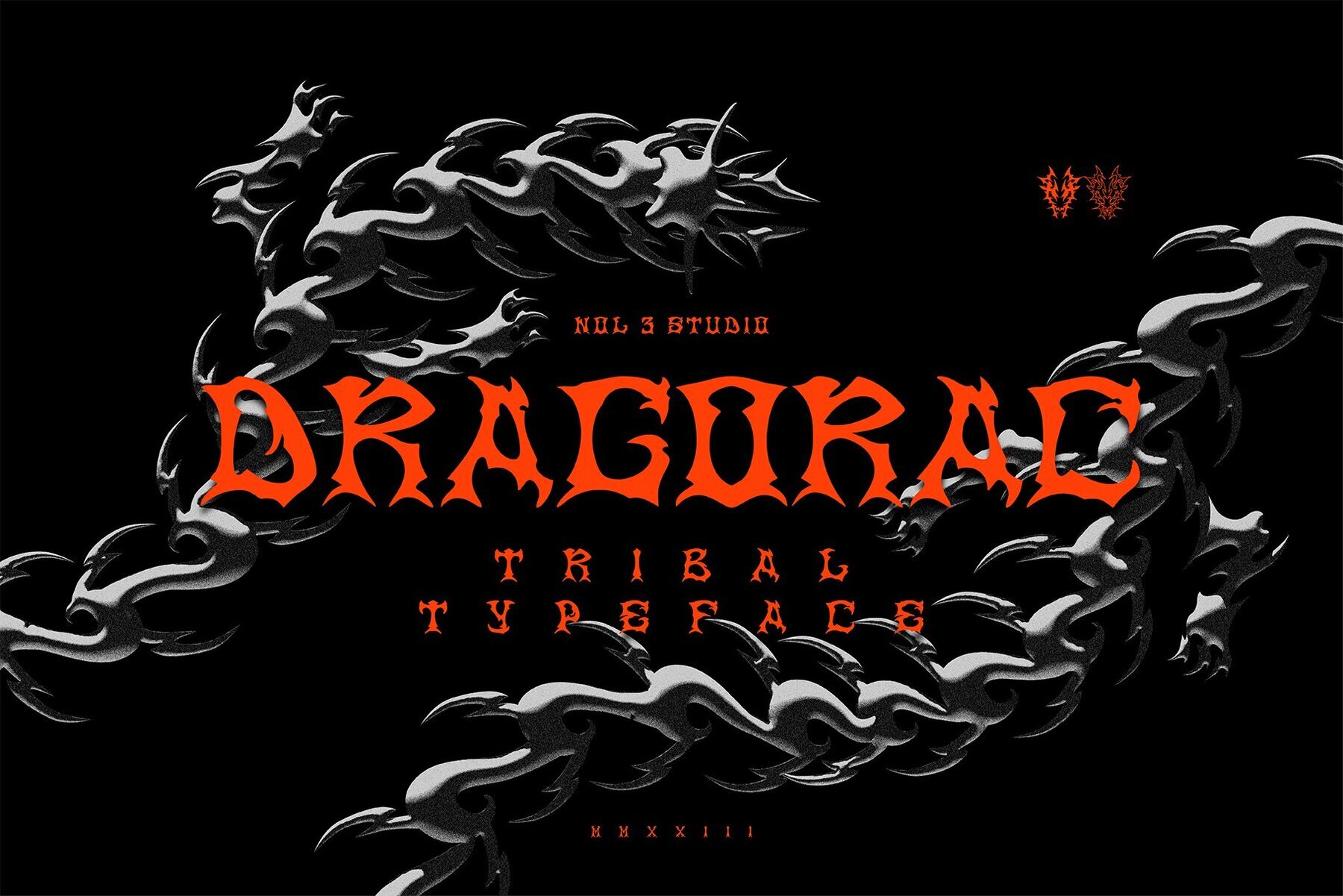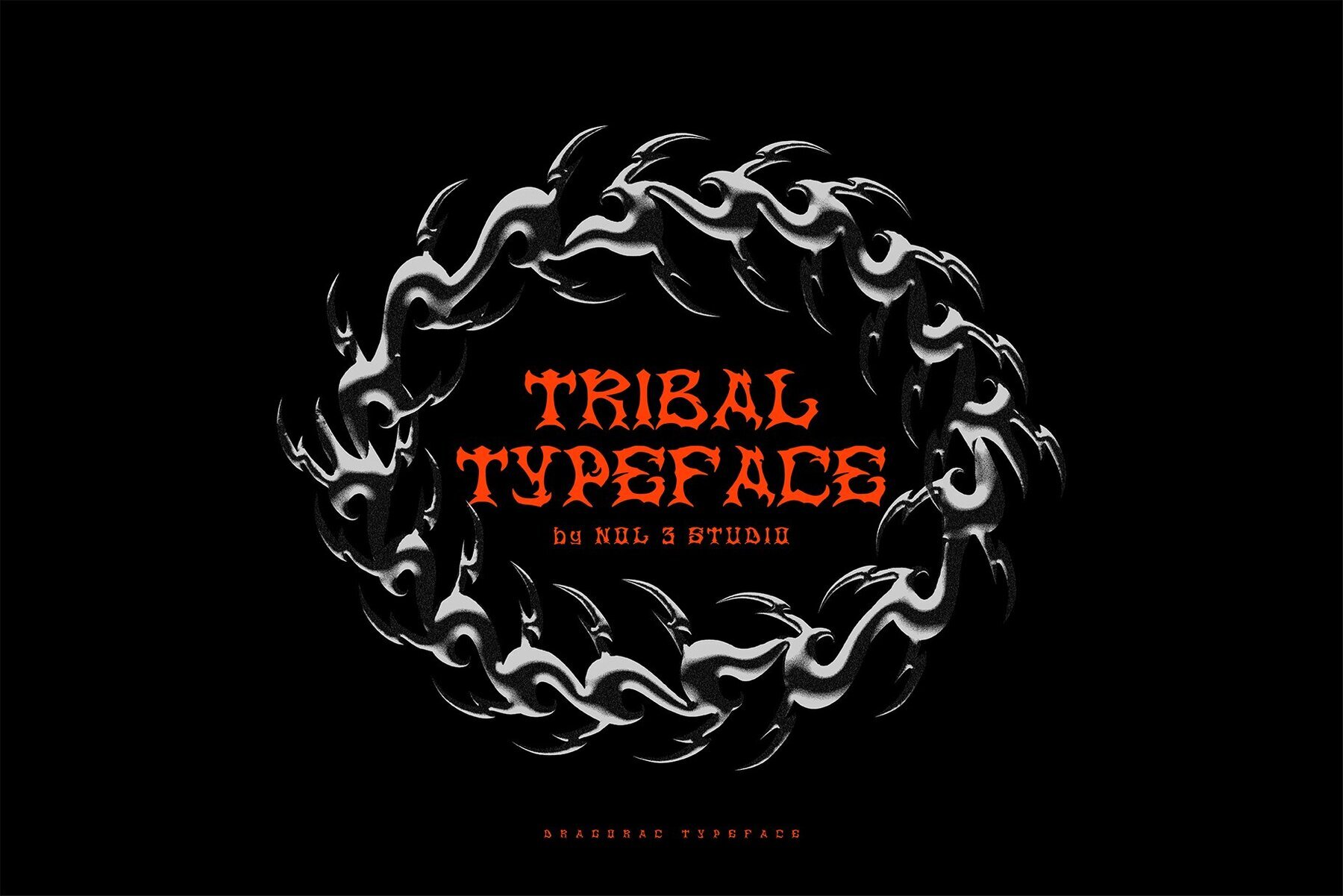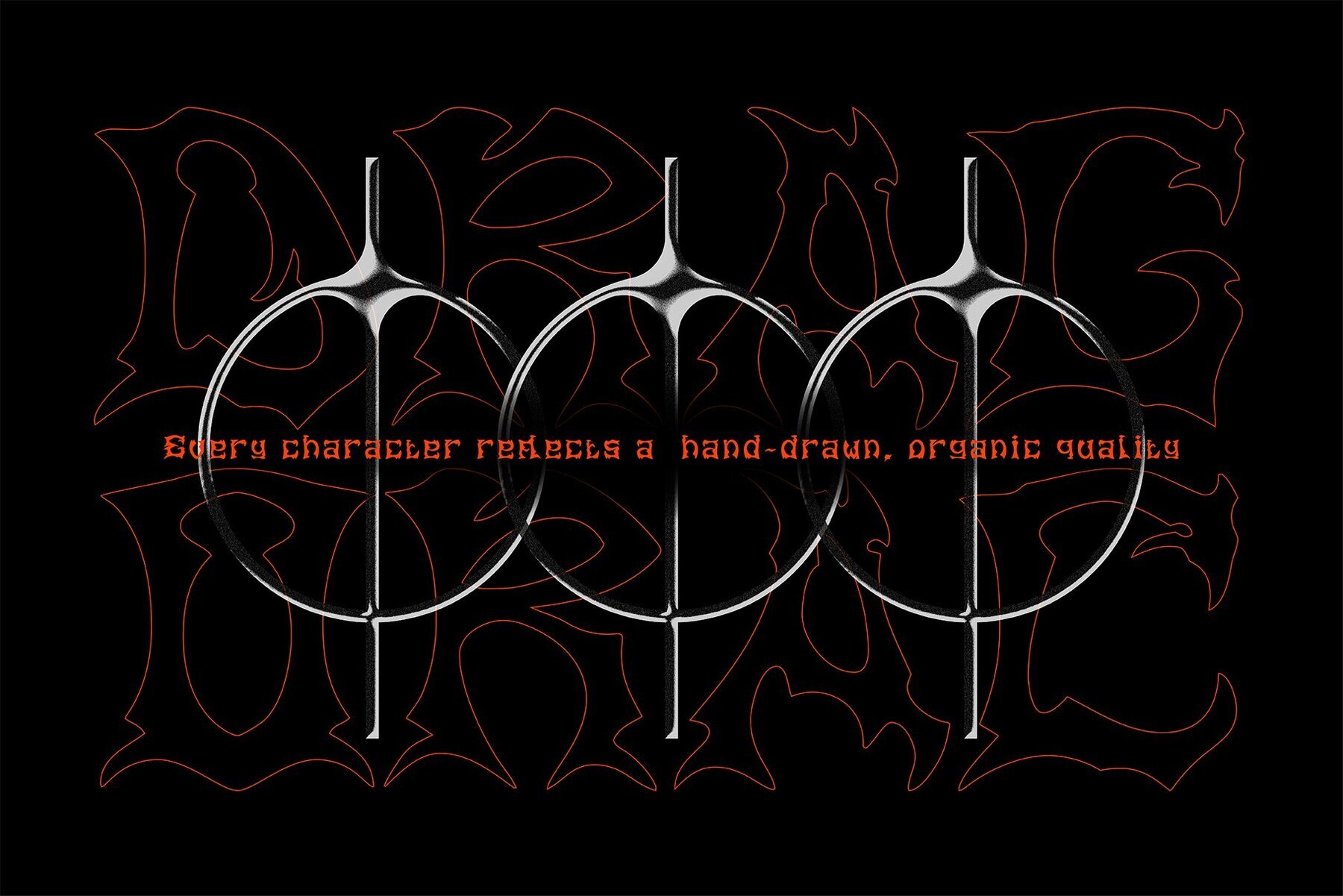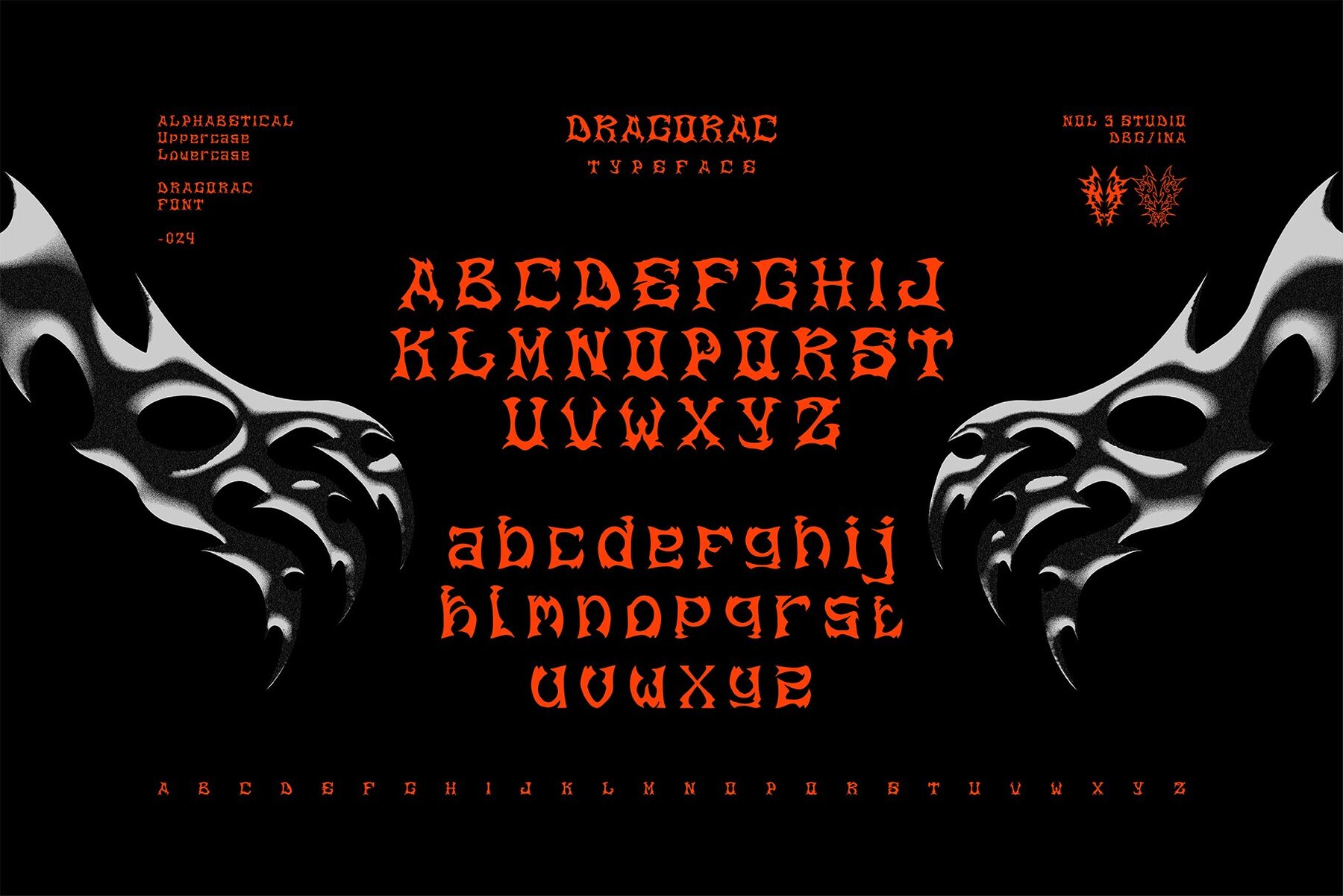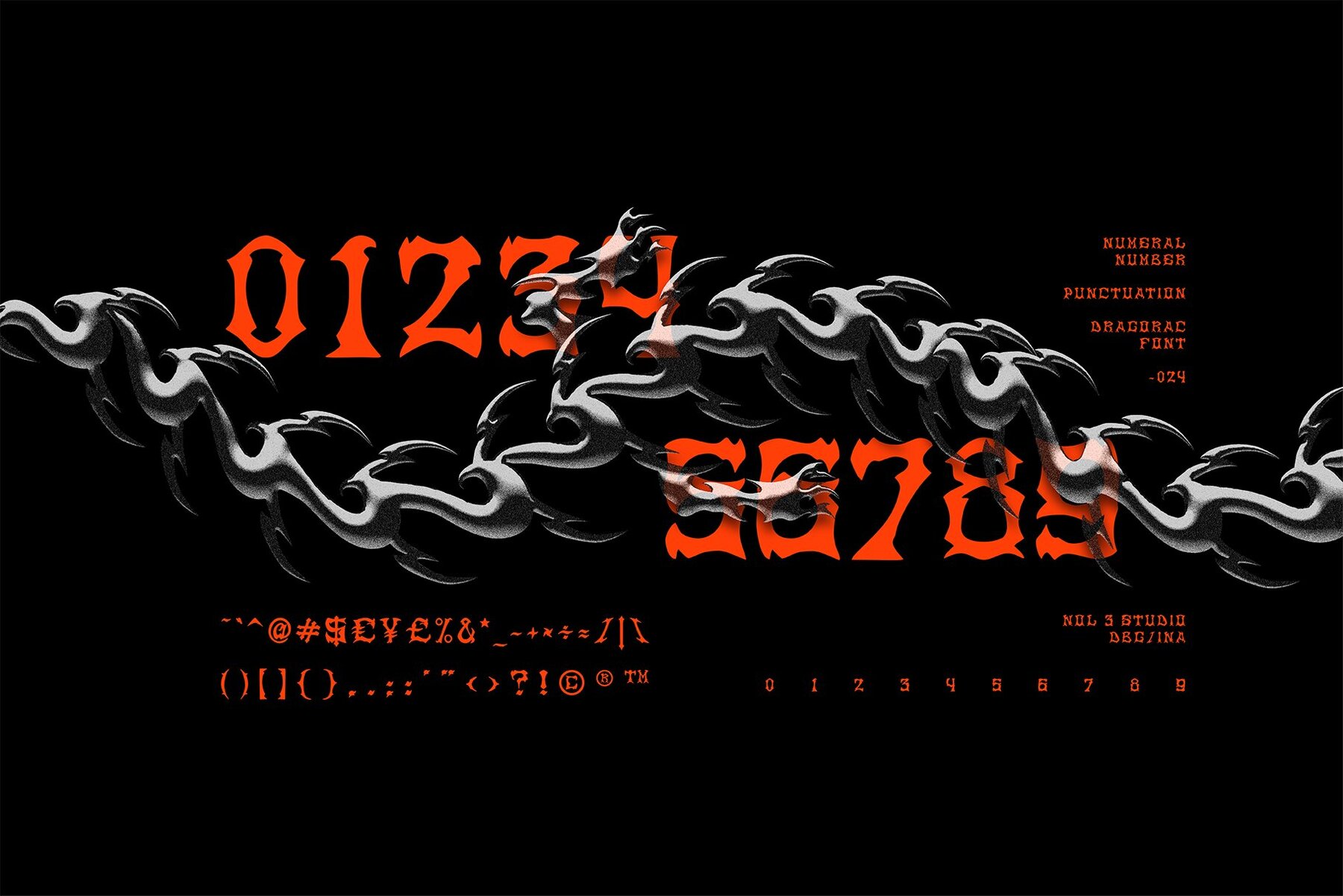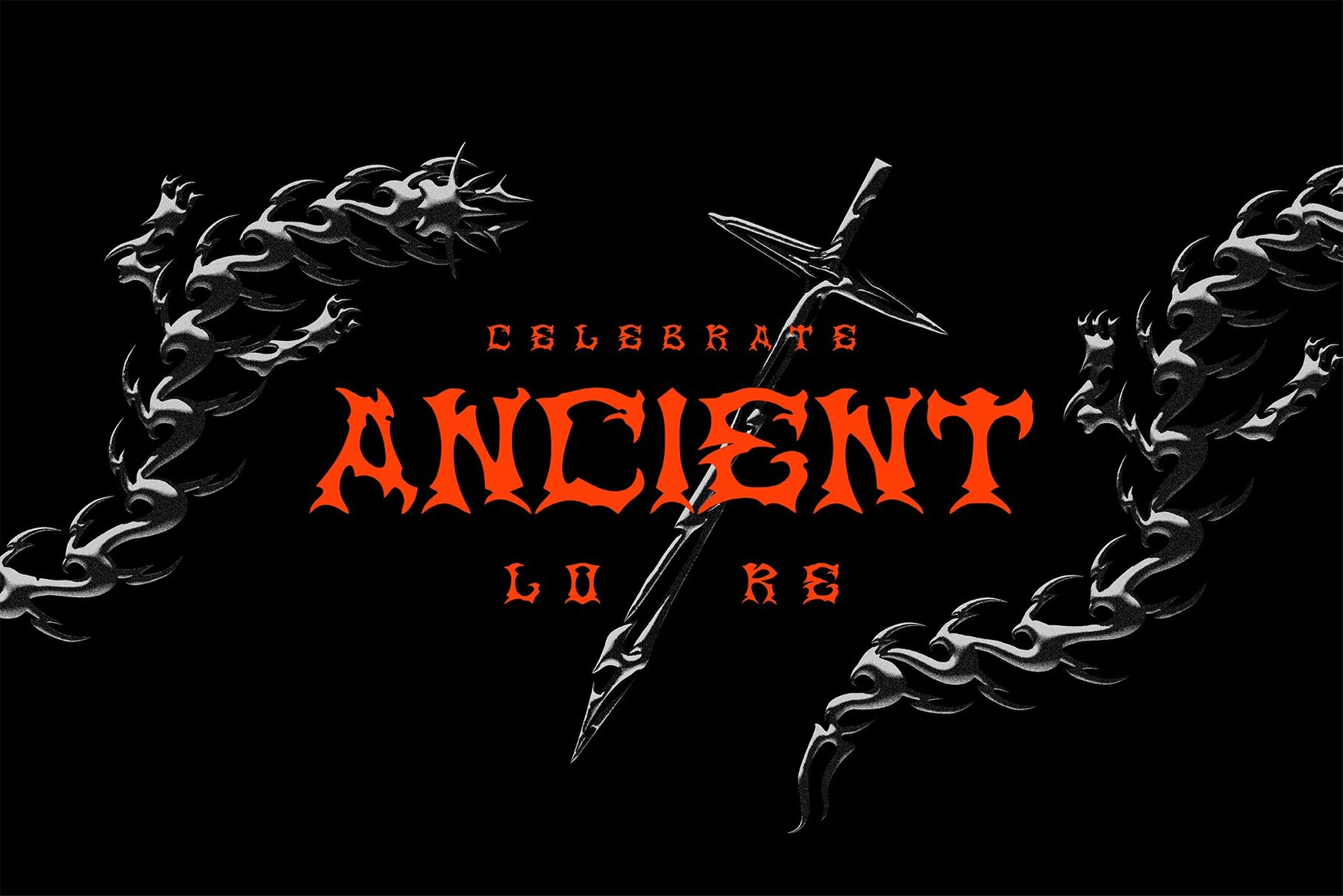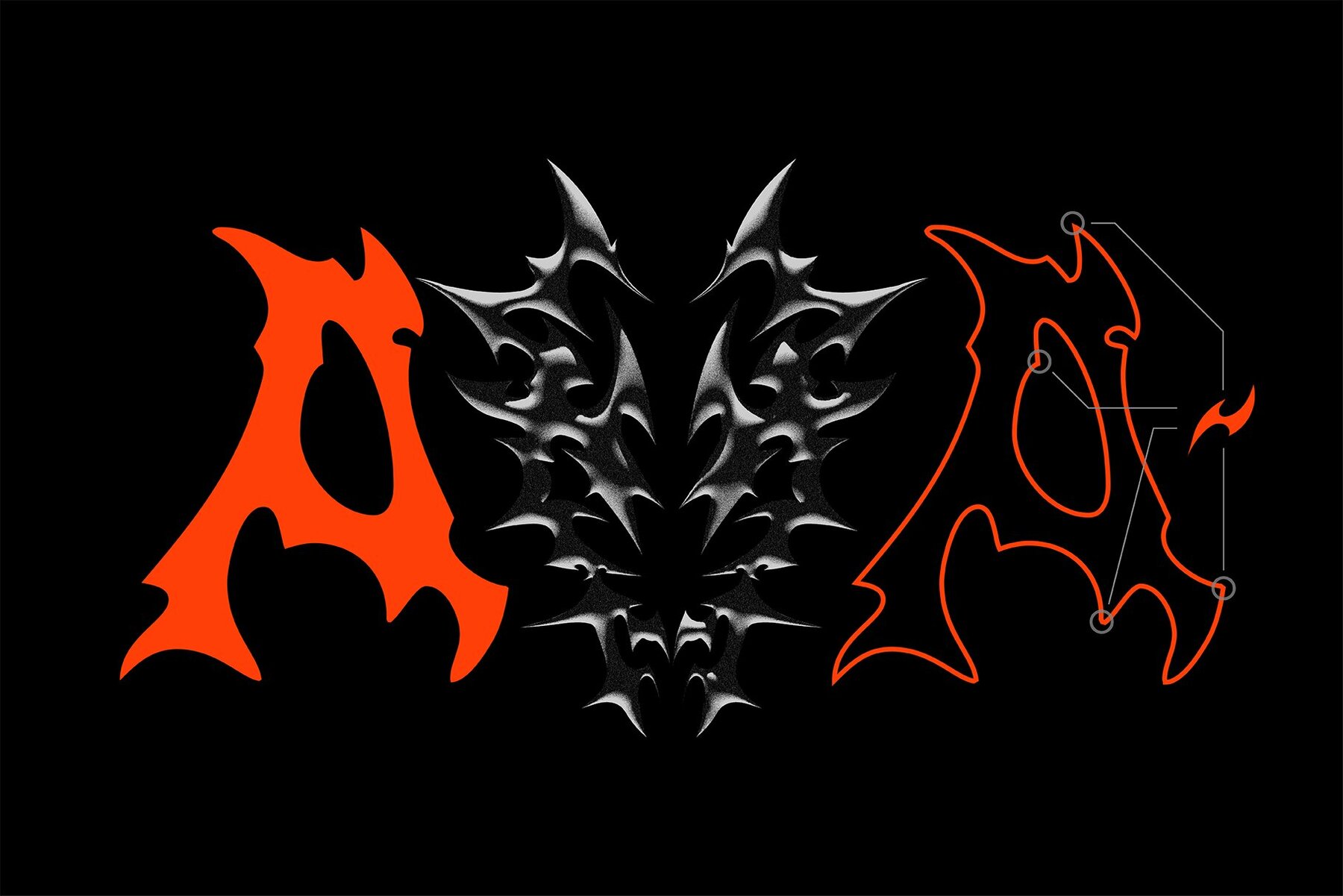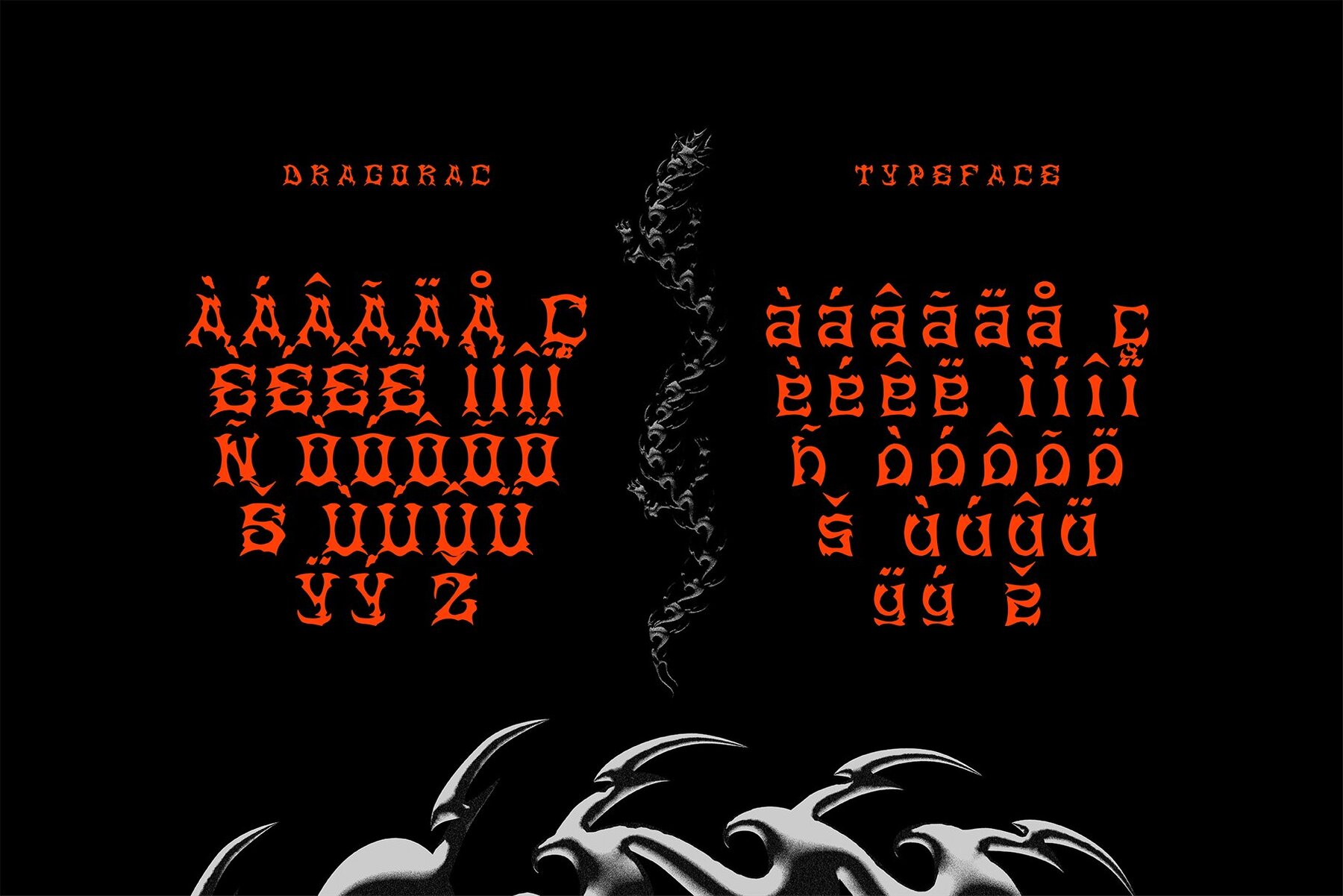
Dragorac Tribal Font
Dragorac Regular
Dragorac Tribal Font draws inspiration from intricate indigenous patterns combined with a hand-drawn aesthetic. This unique typeface captivates with its attention to detail and artistic flair, offering a versatile solution for graphic and digital designers looking to infuse a tribal essence into their projects.
The font boasts over 200 glyphs, providing a comprehensive selection of characters including uppercase and lowercase letters, numbers, and punctuation. Standard ligatures enhance the design capabilities, ensuring seamless connections between glyphs. Additionally, Dragorac Tribal offers multilingual support, making it adaptable for a wide range of languages and diverse design needs.
Whether you're working on branding, poster designs, or digital art, Dragorac Tribal Font offers the flexibility and creativity necessary to bring your projects to life in a distinct and captivating manner.